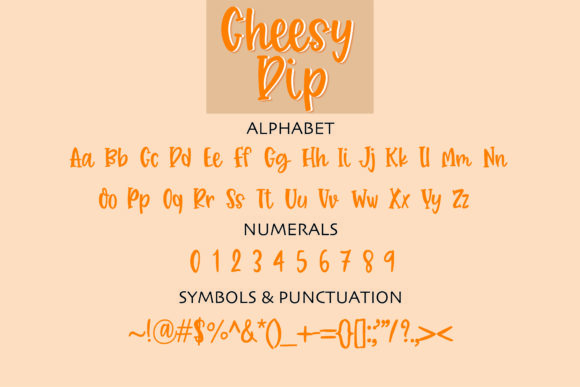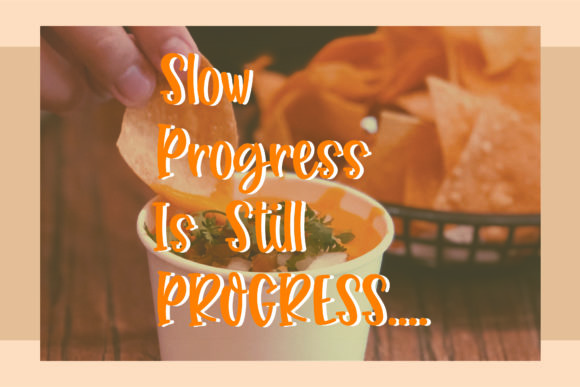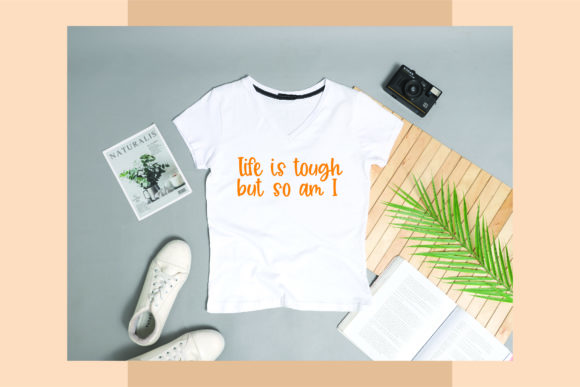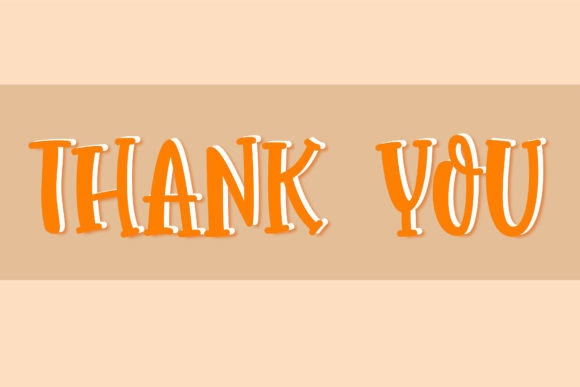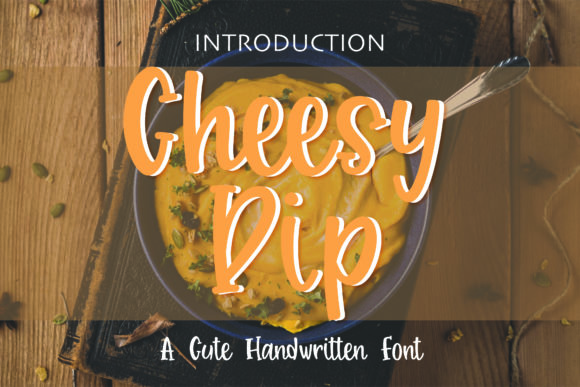
Introducing Cheesy Dip Font: The Ultimate Choice for Fun and Quirky Designs
Are you tired of using the same old fonts for your designs? Look no further! Cheesy Dip Font is here to add a dash of fun and quirkiness to your creations. This casual handwritten font is perfect for designers and crafters who want to add a personal touch to their work. With its friendly and unique style, Cheesy Dip Font is incredibly versatile and can be used for a wide range of designs.
The Characteristics of Cheesy Dip Font
Cheesy Dip Font is a fun and quirky handwritten font that is sure to capture the attention of your audience. Its casual and relaxed style makes it perfect for designs that require a friendly and approachable tone. The font’s unique characteristics include:
- Handwritten style: Cheesy Dip Font has a genuine handwritten look that gives it a personal and relatable feel.
- Quirky and fun: The font’s playful and whimsical style makes it perfect for designs that require a dash of humor and personality.
- Unique and distinctive: Cheesy Dip Font has a one-of-a-kind style that sets it apart from other fonts.
The Benefits of Using Cheesy Dip Font
So, why should you choose Cheesy Dip Font for your designs? Here are just a few benefits of using this amazing font:
- Versatility: Cheesy Dip Font can be used for a wide range of designs, from social media graphics to blog posts, and even merchandise.
- Emotional connection: The font’s friendly and approachable style helps to create an emotional connection with your audience.
- Easy to read: Despite its quirky style, Cheesy Dip Font is easy to read and understand, making it perfect for designs that require a clear message.
Ideas for Using Cheesy Dip Font
So, how can you use Cheesy Dip Font in your designs? Here are a few ideas to get you started:
- Social media graphics: Use Cheesy Dip Font to create fun and engaging social media graphics that will help you stand out from the crowd.
- Blog posts: Add a personal touch to your blog posts with Cheesy Dip Font, perfect for lifestyle, fashion, and food blogs.
- Merchandise: Use Cheesy Dip Font to create fun and quirky merchandise, such as t-shirts, mugs, and tote bags.
- Invitations and party decor: Cheesy Dip Font is perfect for creating fun and playful invitations and party decor.
Tips for Using Cheesy Dip Font
Here are a few tips for using Cheesy Dip Font in your designs:
- Pair with bold colors: Cheesy Dip Font looks amazing paired with bold and bright colors.
- Experiment with different sizes: Try using Cheesy Dip Font in different sizes to add visual interest to your designs.
- Keep it simple: Don’t overcomplicate your designs – keep it simple and let Cheesy Dip Font do the talking.
In conclusion, Cheesy Dip Font is a fun and quirky handwritten font that is perfect for designers and crafters who want to add a personal touch to their work. With its friendly and unique style, Cheesy Dip Font is incredibly versatile and can be used for a wide range of designs. So why not give it a try and see the difference it can make to your creations?
The only limit is your imagination! So go ahead, get creative, and have fun with Cheesy Dip Font!